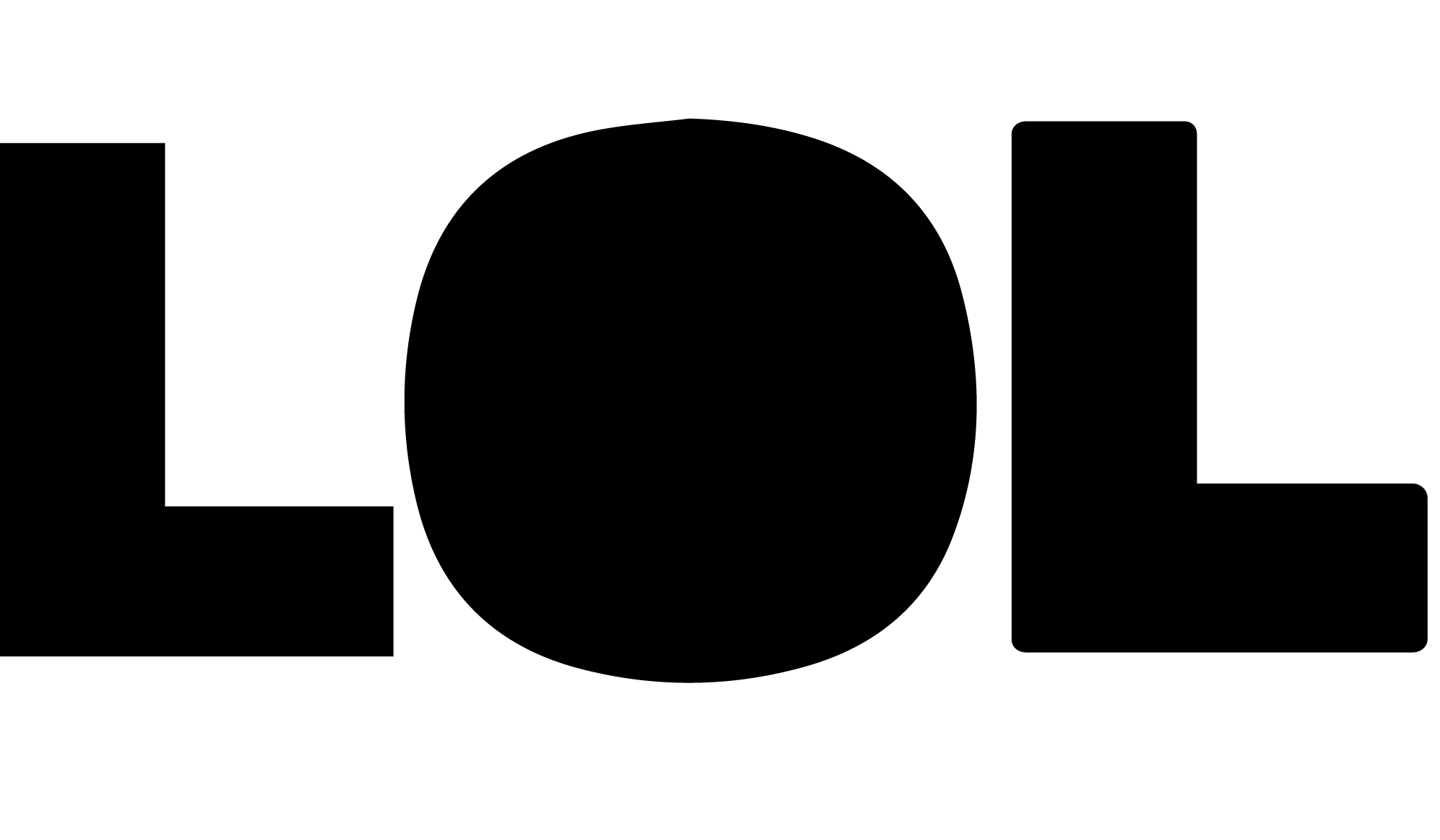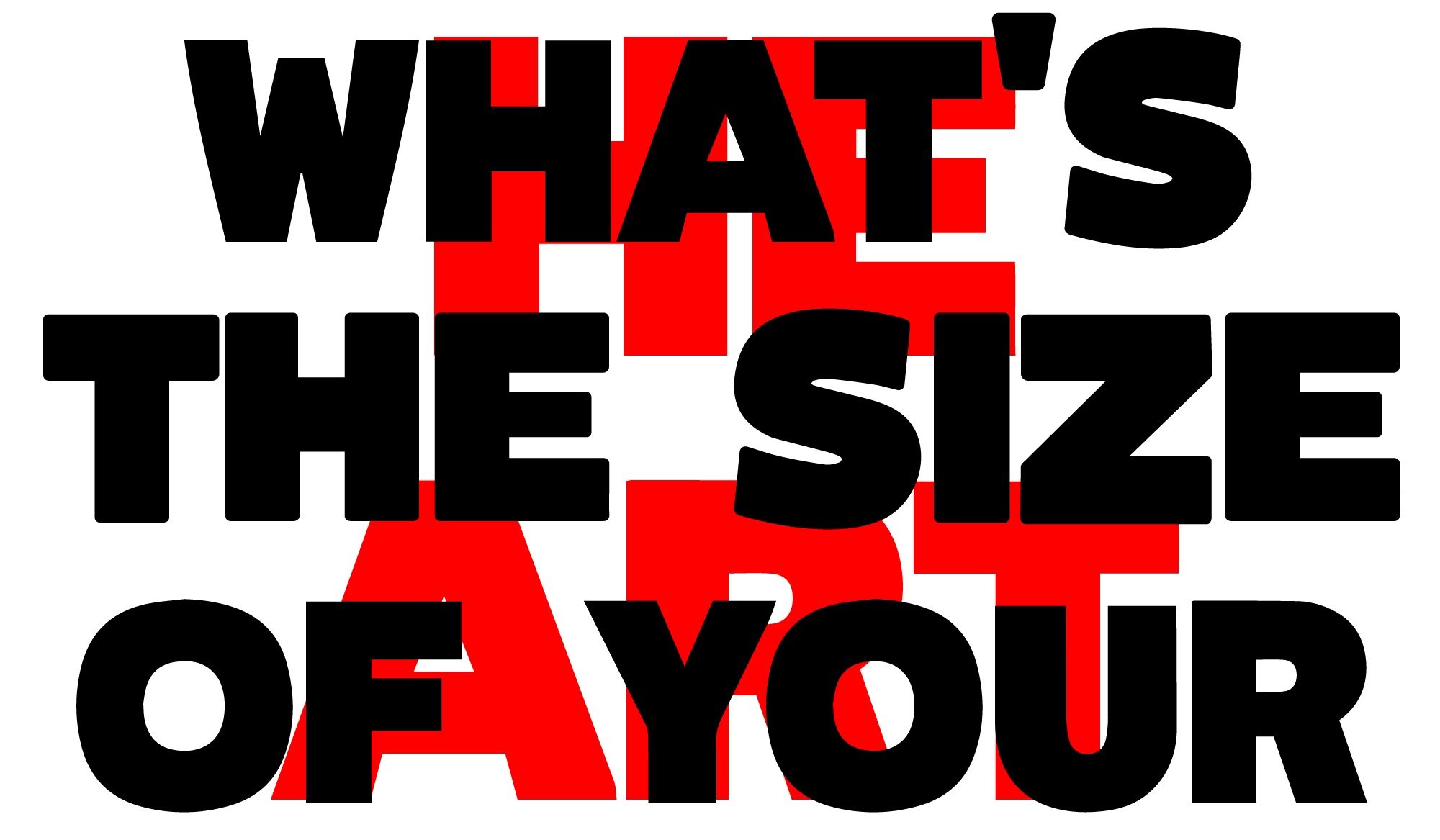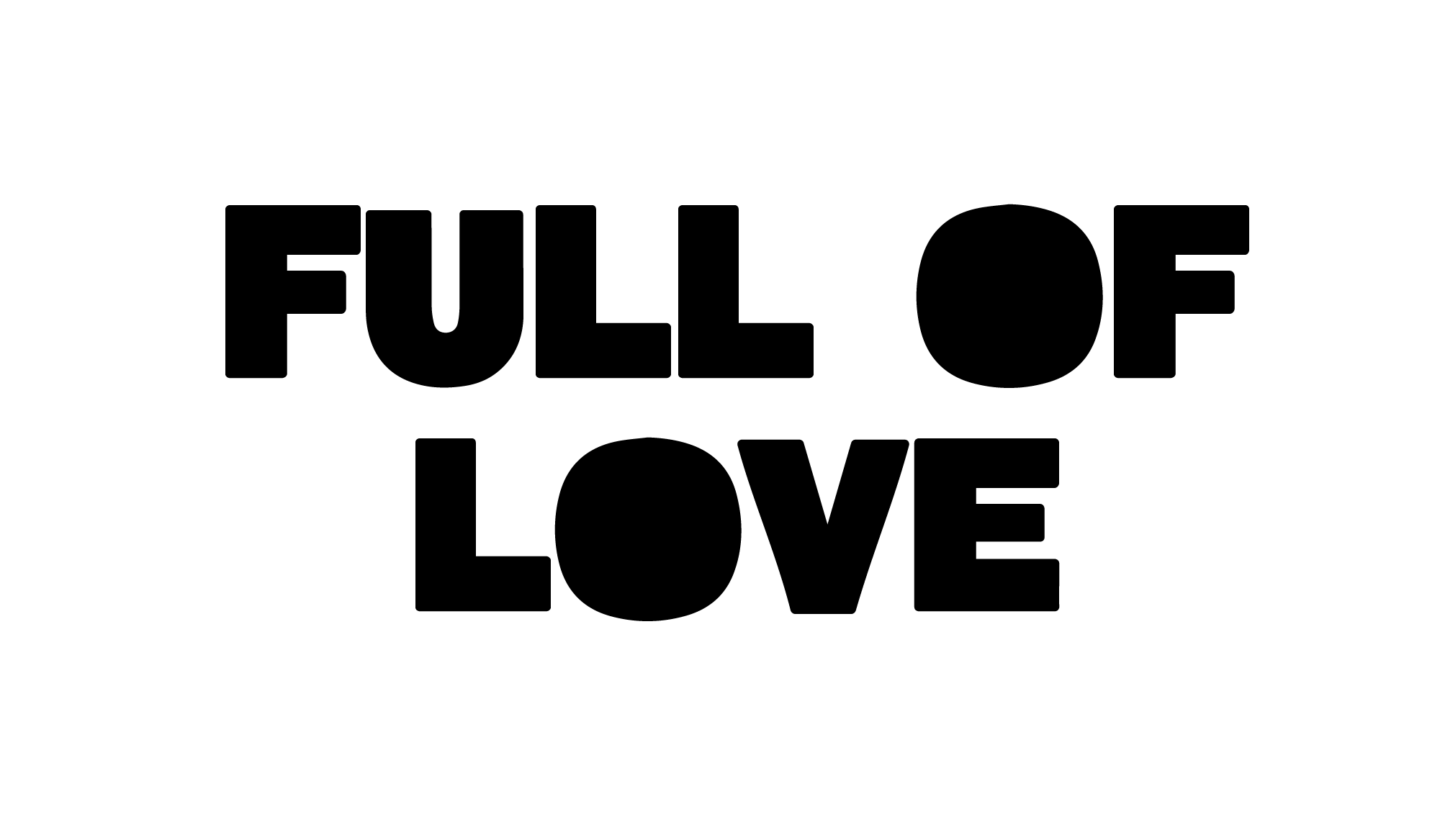
Introduction to Fat is Gud Font
Fat is Gud is a fun and stark cutout font; this thick sans serif is wonderful in playful typographic designs, and looks amazing with bold and poppy concepts.
Key Features of Fat is Gud Font
Fat is Gud Font offers exceptional quality and versatility, making it a valuable addition to your design toolkit. Whether you’re creating for personal projects or commercial use, Fat is Gud Font delivers professional results.